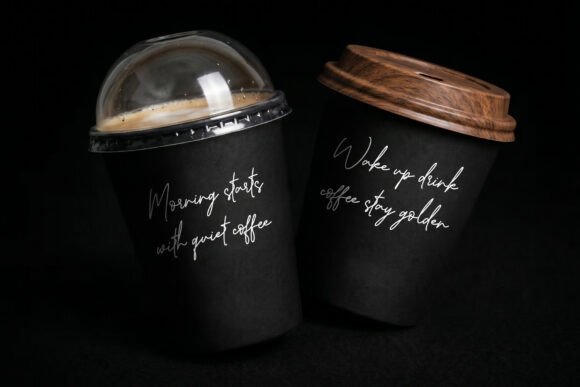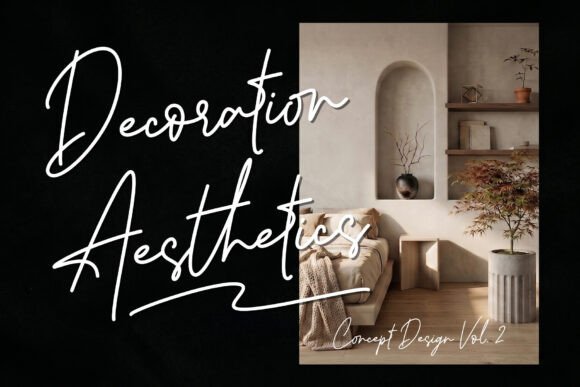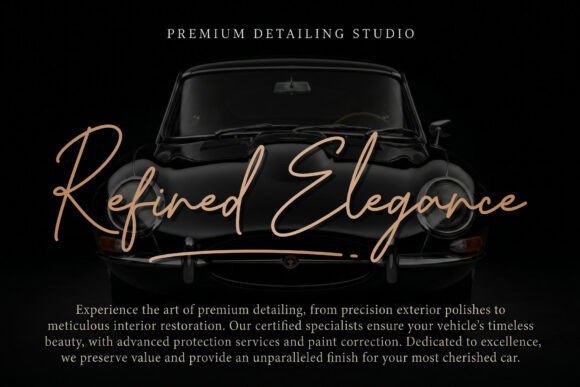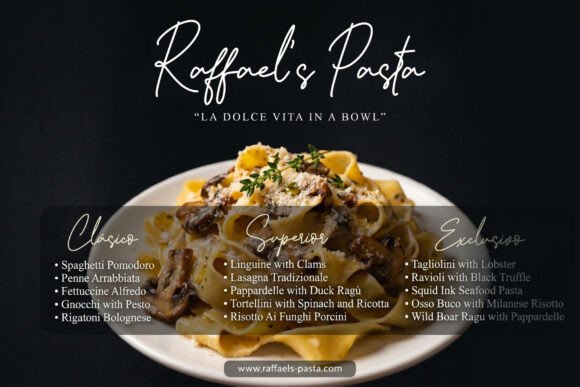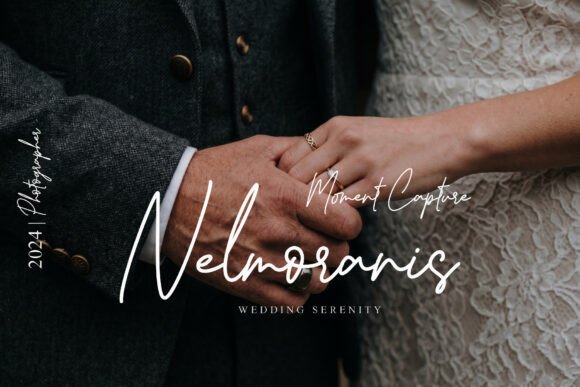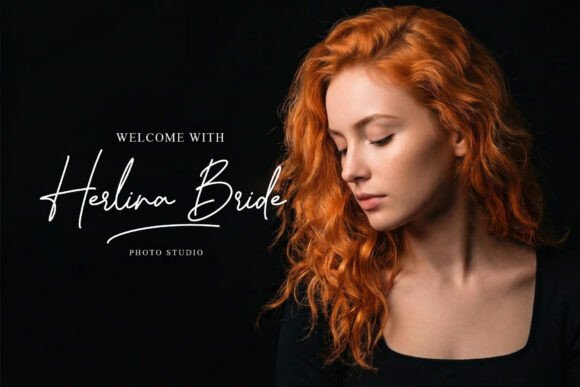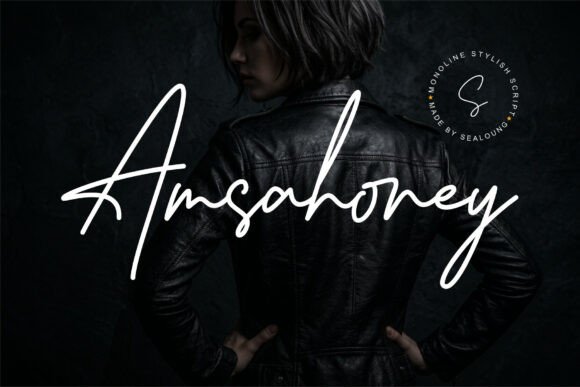
Amsahoney Font: Elevate Your Designs with Elegance and Sophistication
In the world of design, typography plays a crucial role in conveying the tone and personality of a brand or creative project. A well-crafted font can make all the difference in creating a lasting impression on your audience. This is where Amsahoney Signature Script comes in – a modern and elegant handwritten font that is designed to add a touch of luxury, personality, and sophistication to your designs.
What is Amsahoney Signature Script?
Amsahoney Signature Script is a beautifully crafted handwritten font that boasts smooth flowing strokes and a natural signature style. Its refined characters and graceful curves bring a sense of elegance and refinement to every design. Whether you’re a designer, crafty DIY enthusiast, or simply someone who appreciates the art of typography, Amsahoney Signature Script is sure to captivate your audience.
Key Features of Amsahoney Signature Script
- Smooth Flowing Strokes: Amsahoney Signature Script features smooth, flowing strokes that give it a natural and effortless look.
- Elegant Curves: The font’s refined curves and character bring a sense of sophistication and luxury to every design.
- Handwritten Style: Amsahoney Signature Script has a distinctly handwritten feel that’s perfect for creating personalized and unique designs.
- Versatile: This font is suitable for a wide range of design applications, from branding and logos to wedding invitations and social media content.
Amsahoney Signature Script is an incredibly versatile font that can be used in a variety of design applications. Here are some ideas to get you started:
- Branding and Logos: Create a lasting impression with a custom logo that showcases your brand’s personality and style.
- Wedding Invitations: Add a touch of elegance and sophistication to your wedding invitations and save-the-date cards.
- Social Media Content: Elevate your social media presence with eye-catching graphics and posts that feature Amsahoney Signature Script.
- Advertisements: Create attention-grabbing ads that showcase your product or service in a stylish and sophisticated way.
- Product Packaging: Add a personal touch to your product packaging with custom labels and designs that feature Amsahoney Signature Script.
- Stationery: Create beautiful stationery, including notecards, journals, and planners, that showcase your personal style.
- Photography Watermarks: Add a professional touch to your photos with custom watermarks that feature Amsahoney Signature Script.
Why Choose Amsahoney Signature Script?
With so many fonts to choose from, why should you choose Amsahoney Signature Script? Here are just a few reasons:
- Unique and Exclusive: Amsahoney Signature Script is a one-of-a-kind font that’s sure to set you apart from the crowd.
- Elegant and Sophisticated: This font exudes elegance and sophistication, making it perfect for high-end designs and luxury brands.
- Easy to Read: Amsahoney Signature Script is clear and easy to read, making it perfect for body text and headlines.
- Customizable: You can customize Amsahoney Signature Script to fit your brand’s unique style and personality.
Amsahoney Signature Script is a stunning handwritten font that’s perfect for designers, crafty DIY enthusiasts, and anyone who appreciates the art of typography. With its smooth flowing strokes, elegant curves, and natural signature style, this font is sure to elevate your designs and add a touch of luxury, personality, and sophistication. Whether you’re creating branding materials, wedding invitations, social media content, or product packaging, Amsahoney Signature Script is the perfect choice.